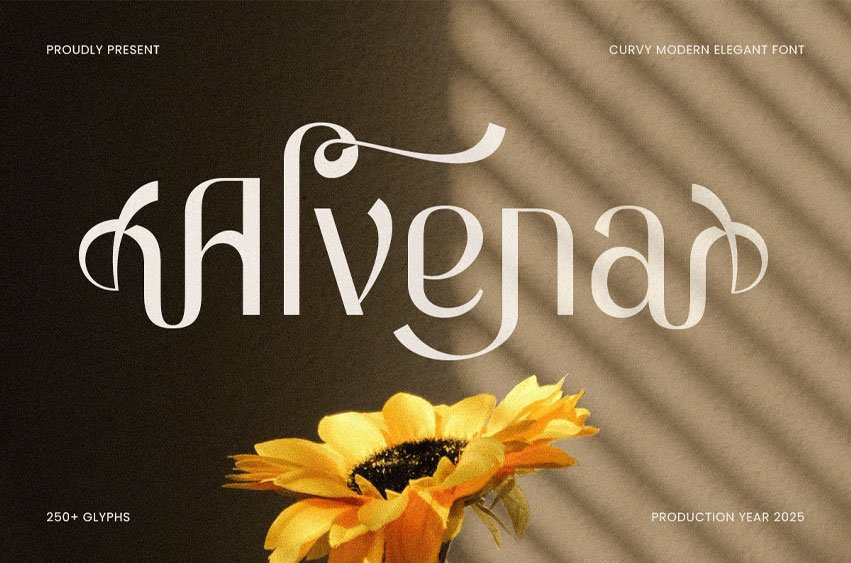
Alvena Font is a curvy, modern, elegant font that brings a perfect blend of softness and sophistication to your design projects. Its graceful curves and contemporary serif style make it ideal for high-end branding, luxury logos, fashion editorial, and premium invitations.
Inspired by modern elegance and timeless beauty, ALVENA combines striking curves with a refined structure to create a font that exudes femininity and grace. Whether you’re working on a wedding invitation, boutique branding, or editorial design, this font will add a polished and elevated touch to any design project. With its versatility, ALVENA effortlessly adapts to both print and digital environments, making it perfect for any creative project that calls for a chic, elegant feel.
ALVENA – Curvy Modern Elegant Font Features
- Graceful and curvy serif letterforms
- Perfect for luxury branding, fashion, and editorial designs
- Includes uppercase, lowercase, numerals, and punctuation
- Elegant and readable for both print and digital use
- OpenType features Ligature & Alternate for extra versatility and styling
Make your designs stand out with ALVENA – the ultimate font for luxurious, modern elegance.